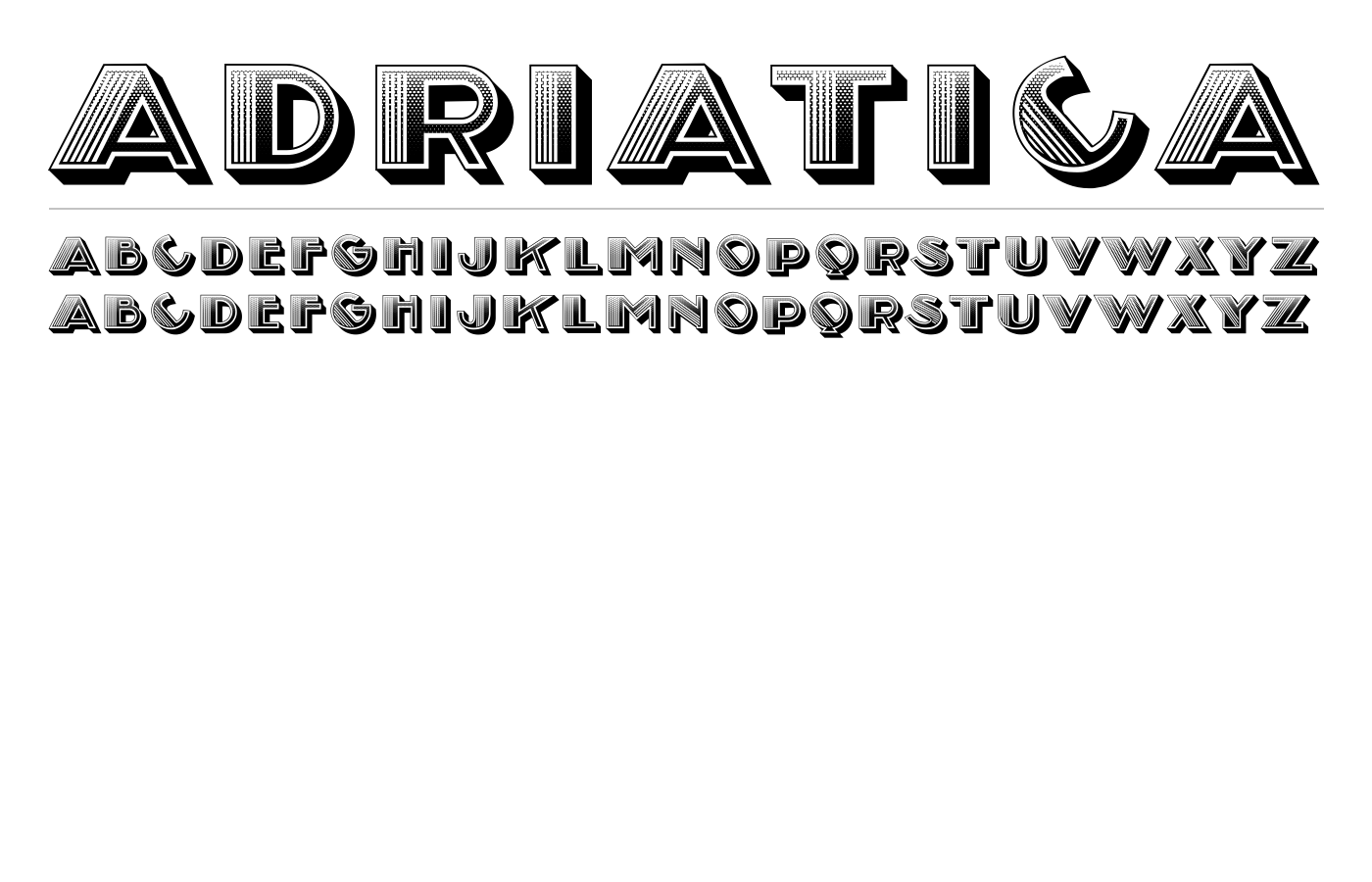
Adriatica is a bold, decorative display font featuring uppercase letters with a strong three-dimensional effect and intricate line shading that adds depth and vintage charm. Its geometric, stylized forms give it an eye-catching and playful personality, making it perfect for retro-inspired logos, posters, and headlines where a distinctive and dramatic impact is desired. This font works especially well in creative branding and artistic projects looking to blend classic flair with modern boldness.
Adriatica Font
About Adriatica Font